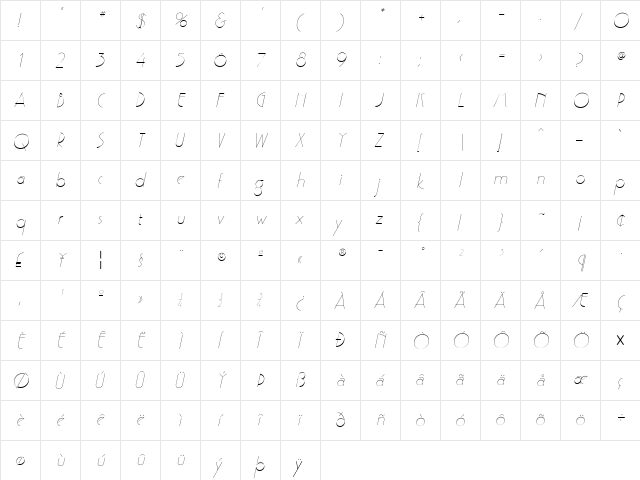
GatsbyFLF Medium Italic
Design Context for GatsbyFLF Typeface
GatsbyFLF offers clean, dependable letterforms without strong stylistic allegiance, making it a practical choice for designers who need flexibility. Its italic angle brings a sense of urgency and motion to the letterforms.
Pro Tip: Try GatsbyFLF for annotation and caption copy alongside an upright companion — the contrast in angle creates a dynamic but ordered typographic system.